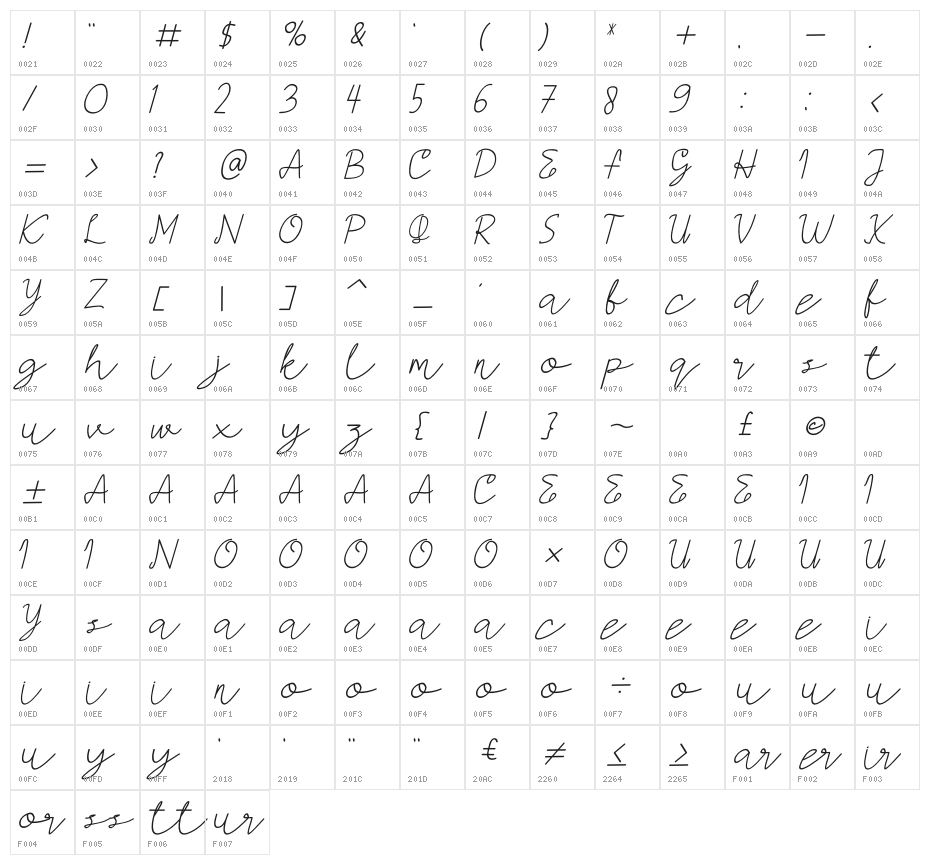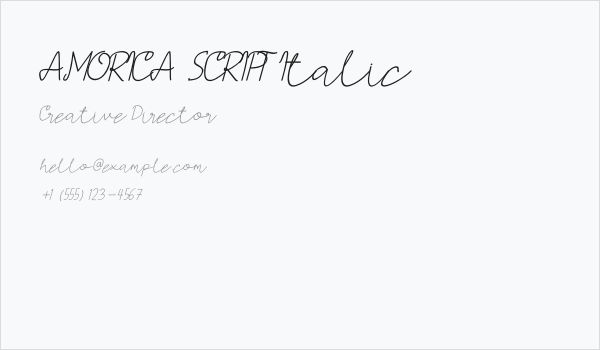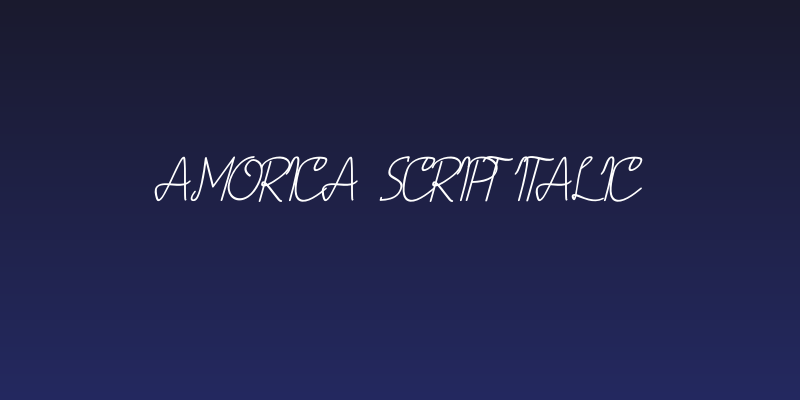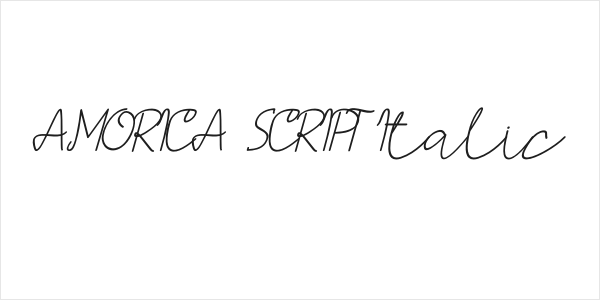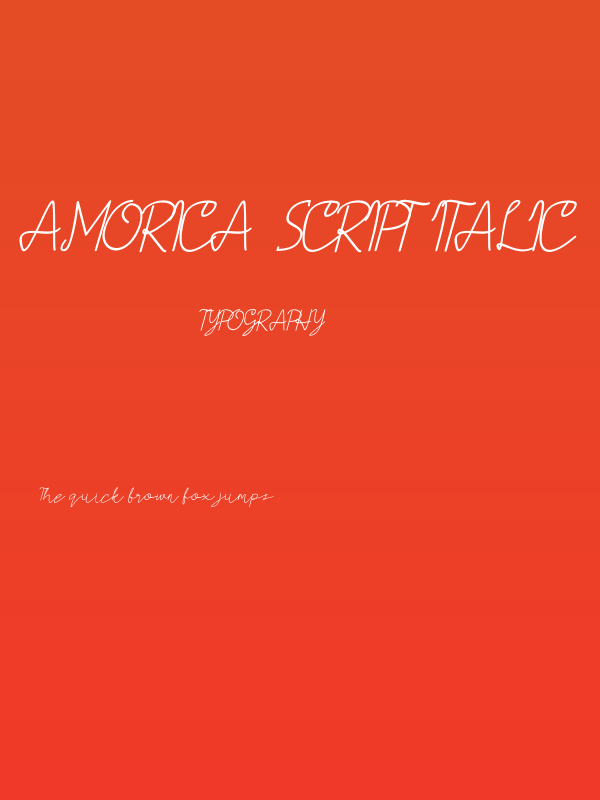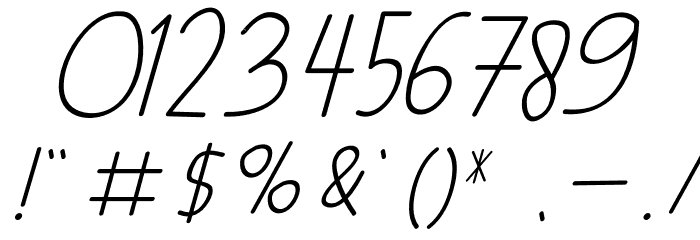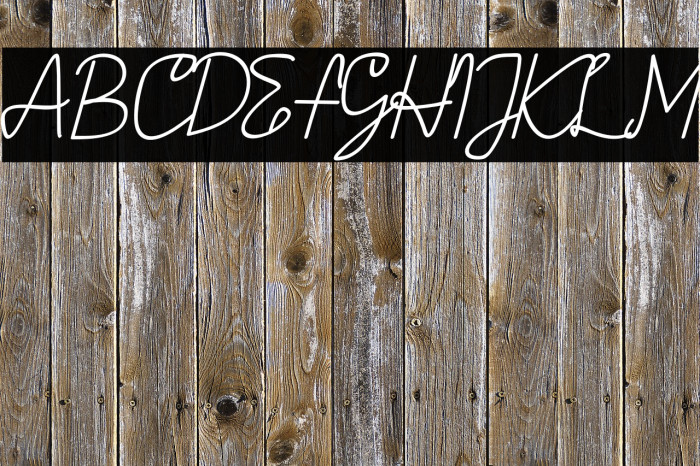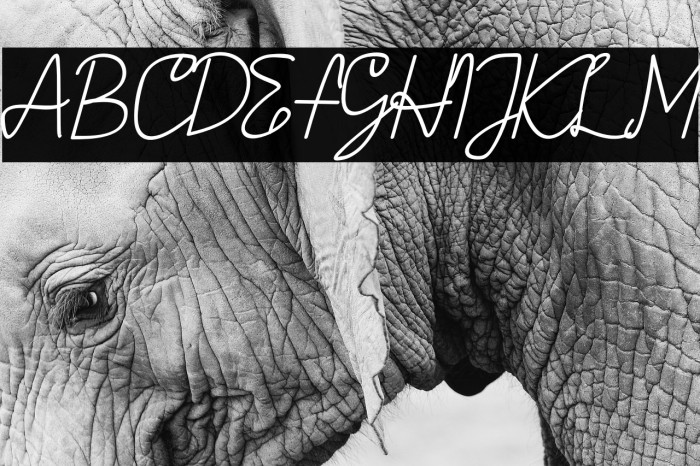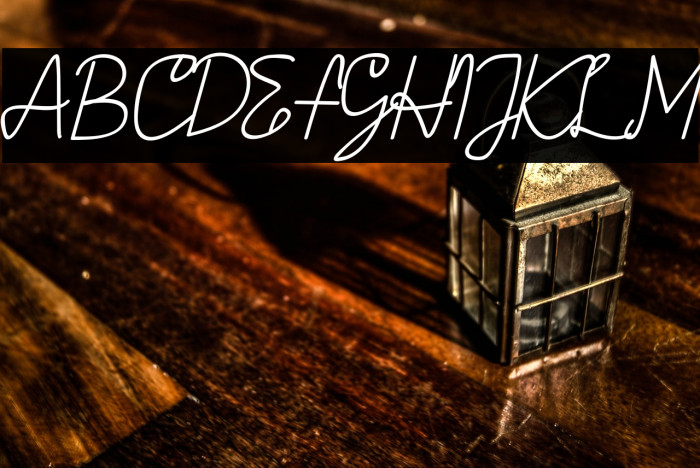
AMORICA SCRIPT Italic Font
AMORICA SCRIPT Italic Description
This elegant script font features a flowing, cursive style with smooth, connected strokes that mimic natural handwriting. The uppercase letters are tall and graceful, while the lowercase letters maintain a consistent slant, enhancing the font's fluidity. Numbers and special characters are designed with the same attention to detail, ensuring a cohesive look across all elements. The font's overall appearance is both sophisticated and approachable, making it suitable for a variety of design projects.
| Proposed Projects | Ideal for wedding invitations, greeting cards, personal branding, and elegant logo designs. |